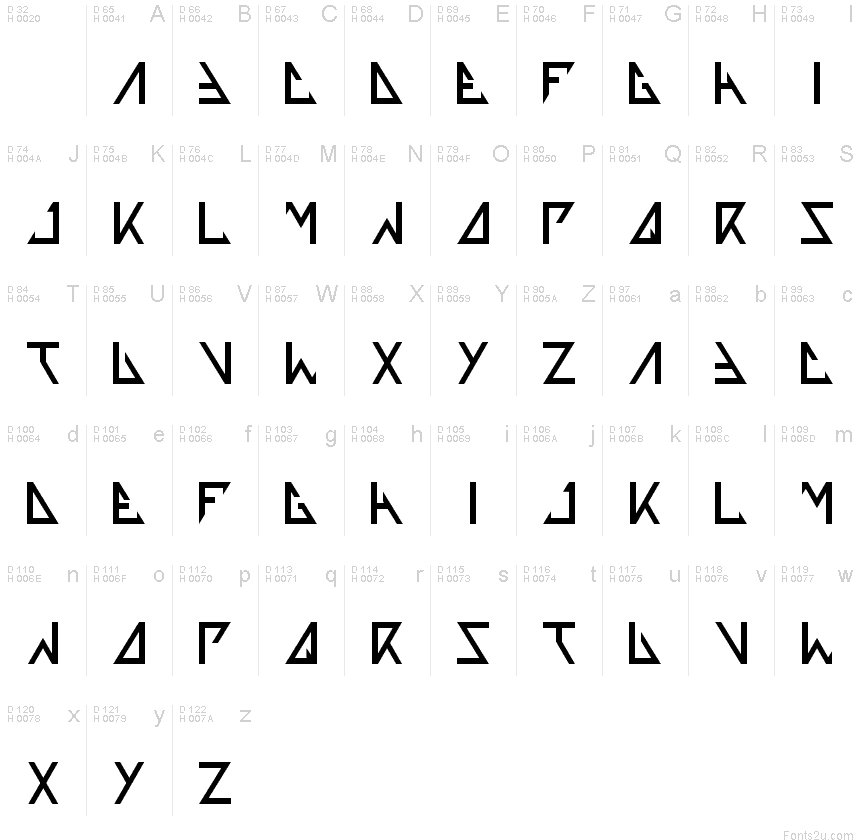
Training Artist is a free futuristic display font with severe angles and an unusually lean silhouette. Its capitals reduce familiar forms to long diagonals, narrow uprights, and abrupt cutaways, producing a coded architectural texture. Several letters are almost skeletal.
Science fiction is its clearest territory, especially for film posters, game interfaces, and electronic music artwork that benefit from lettering reminiscent of control panels or engineered symbols. In technology branding and event graphics, the alphabet can become part of a circuit-like emblem rather than serving as neutral text, with stark mechanical tension.